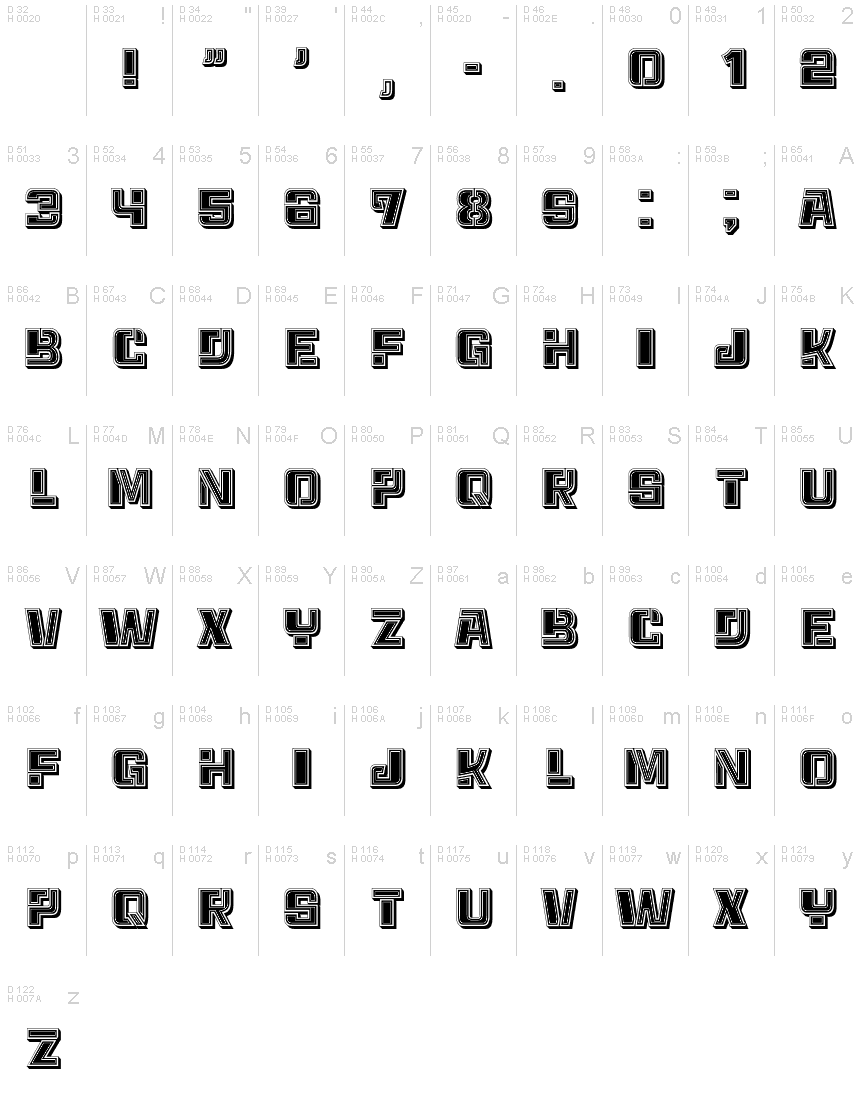
Blonde Extravagant Regular
Blonde Extravagant font is a 3d techno typeface designed by Vladimir Nikolic.
It comes in Regular, Extravagant, Light and Light Extravagant!
Blonde Extravagant